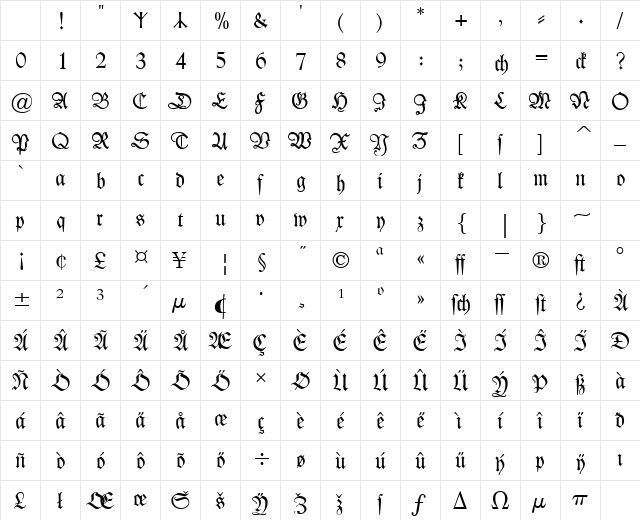
Complete Kleist-Fraktur Zierbuchstaben Regular glyph index. Displaying only characters natively supported by Kleist-Fraktur Zierbuchstaben Regular font.
Kleist-Fraktur Zierbuchstaben draws on the rich tradition of blackletter calligraphy, with dense, angular strokes that evoke medieval manuscripts and old-world craftsmanship.
Font Pairing: Pair with a clean neutral sans-serif for body copy to let Kleist-Fraktur Zierbuchstaben's character lead without overwhelming the composition.
Pro Tip: Reserve Kleist-Fraktur Zierbuchstaben for display and logo use - pair it with a clean sans-serif for body copy to prevent the composition from feeling oppressive.